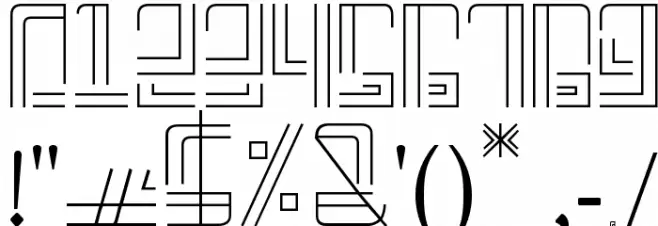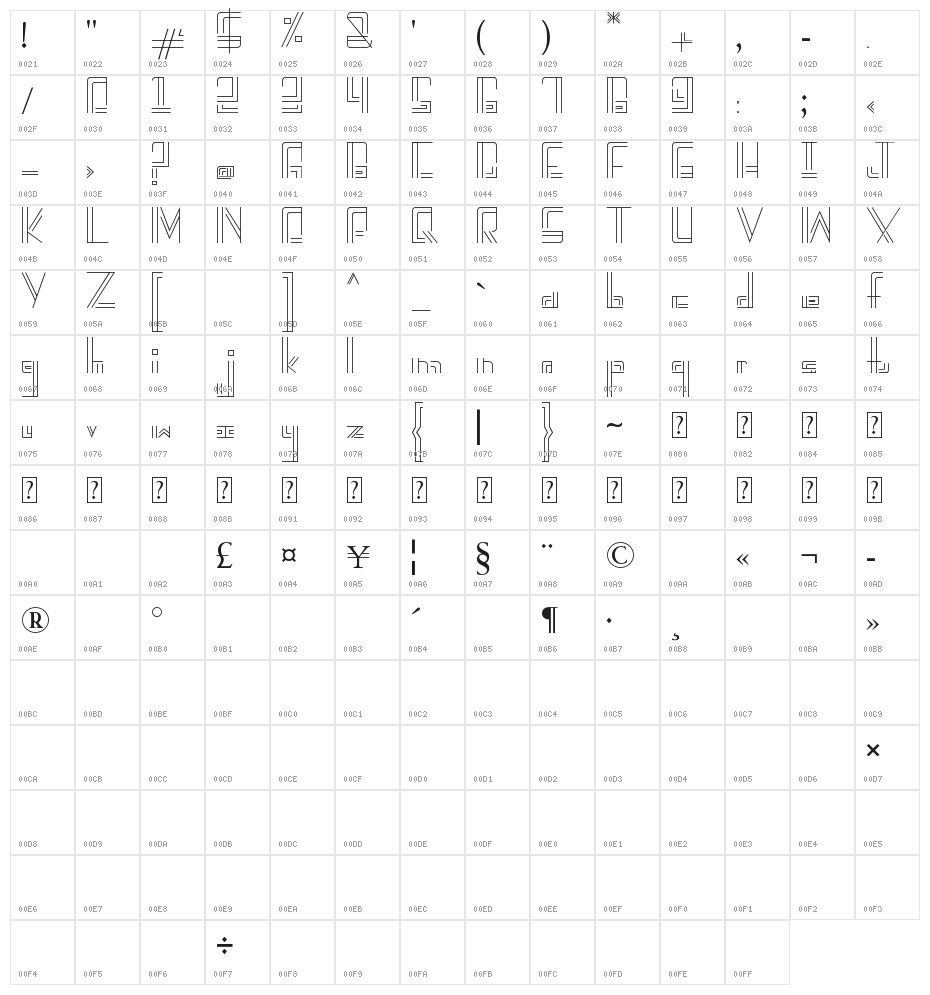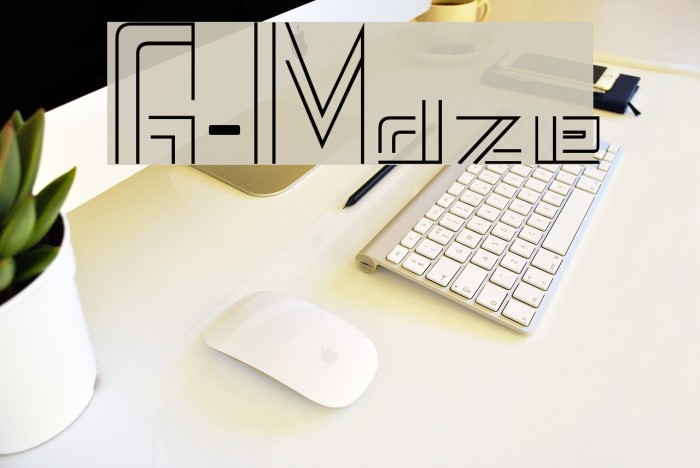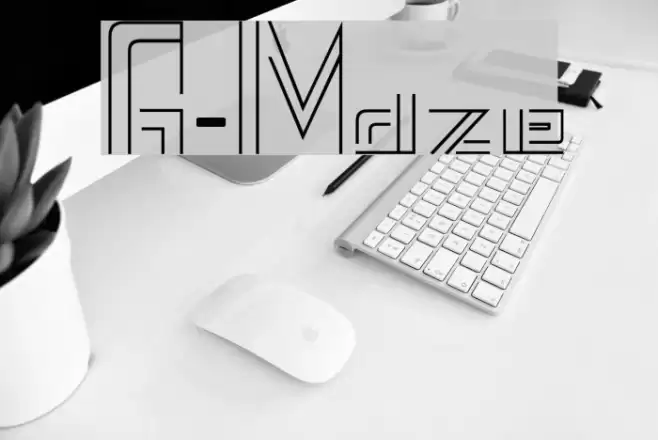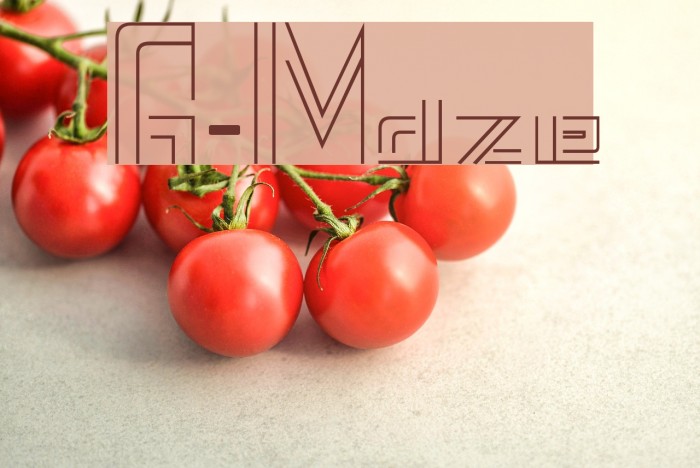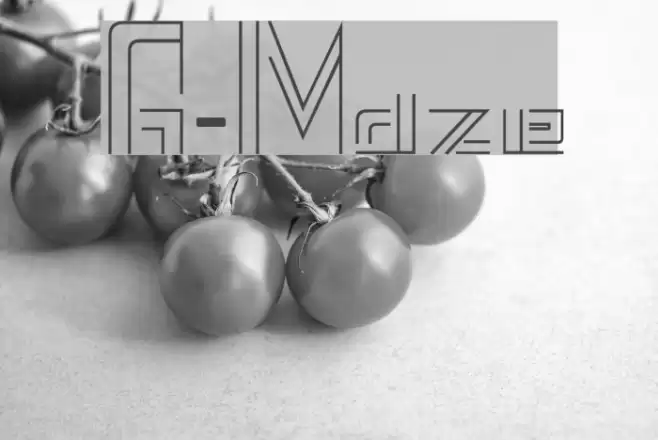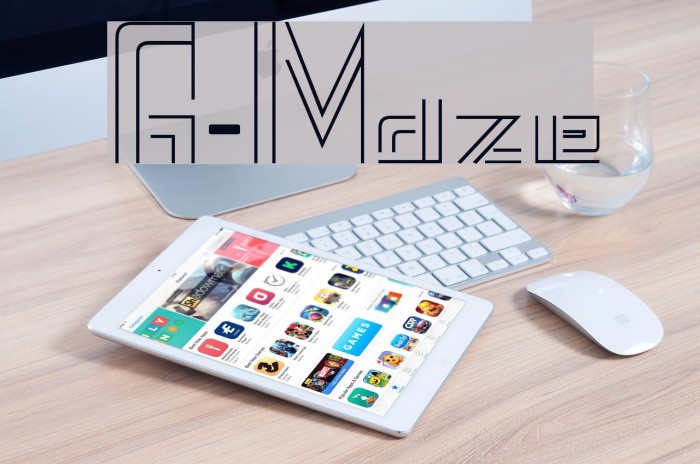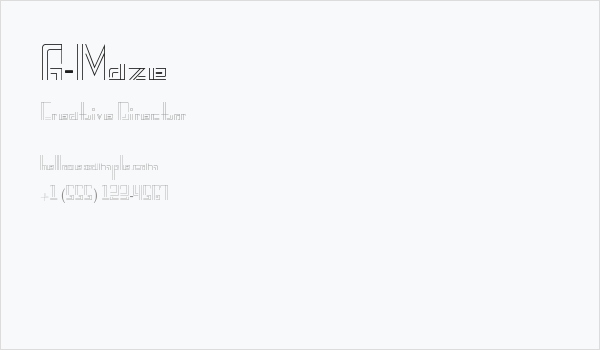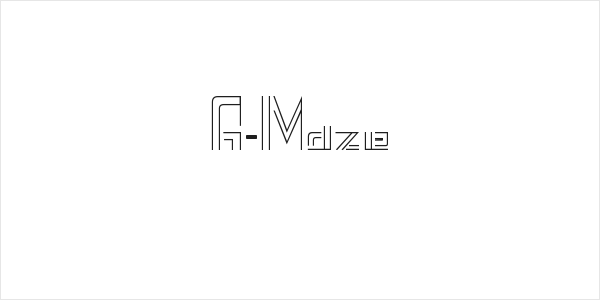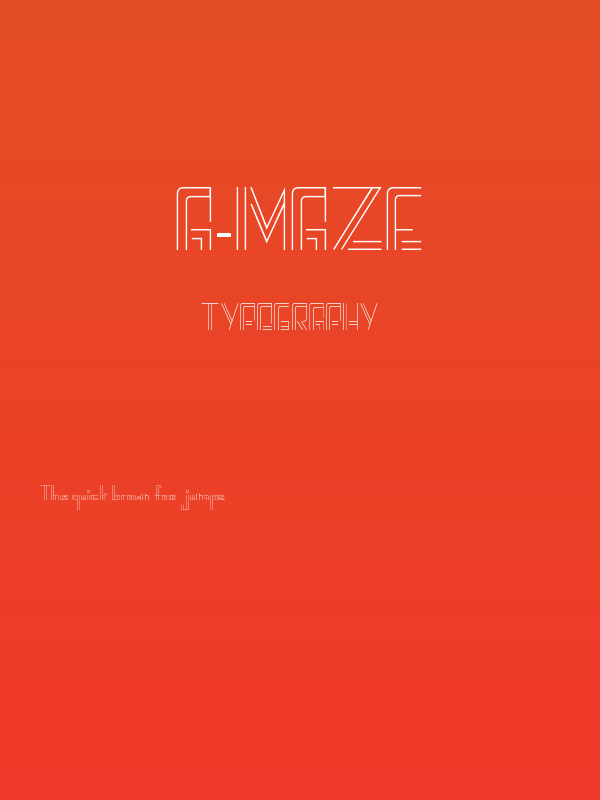
A-Maze Font
A-Maze Description
This font features a unique and intricate design with a maze-like structure. Each character is composed of multiple parallel lines that create a geometric and futuristic appearance. The uppercase letters are bold and striking, while the lowercase letters maintain the same intricate style with a slightly more condensed form. Numbers and special characters follow the same design principles, ensuring a cohesive look throughout. The font's distinct style makes it ideal for projects that require a modern and avant-garde aesthetic.
| Proposed Projects | Ideal for modern branding, sci-fi themed designs, posters, and digital artwork. |